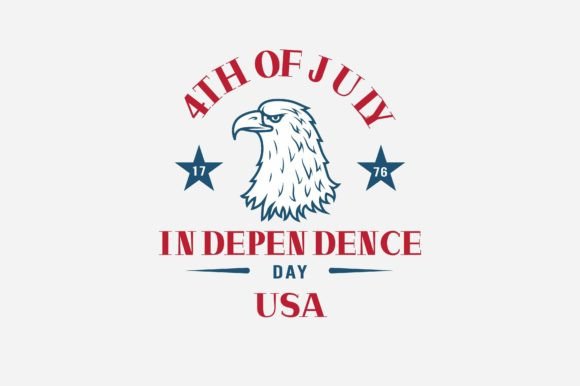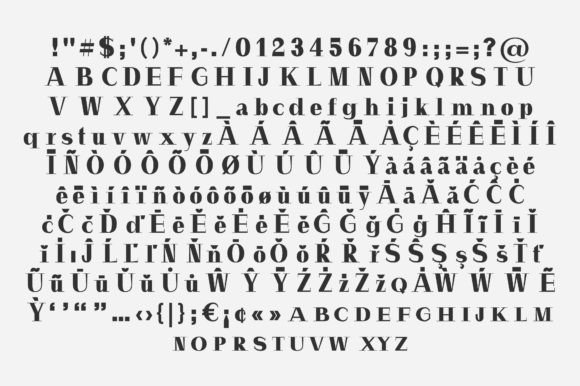
Brklyn
Brklyn: A Modern and Stylish Slab Serif Font
Brklyn is a modern, stylish, and chic slab serif font designed to give an elegant aspect to your creations! Use it confidently in your creative projects, and you will see how it takes everything in your design to the next level.
Key Features of Brklyn
• Modern Design: Offers a contemporary look suitable for various applications.
• Slab Serif Structure: Features distinctive serifs that add character and style.
• Stylish Appearance: Brings a chic and elegant feel to designs.
• Versatile Application: Elevates various creative projects to the next level.
Ideal Uses for Brklyn
Brklyn’s unique characteristics make it particularly well-suited for:
When incorporating Brklyn into your designs, consider these tips:
• Use for headlines or short blocks of text to showcase its modern and stylish features.
• Experiment with different sizes to highlight the font’s elegant aspects.
• Utilize its chic appearance to elevate the overall look of your designs.
Brklyn is an excellent choice for designers looking to add a modern and stylish slab serif font to their typographic toolkit. Its ability to bring elegance and contemporary flair to various design projects makes it stand out in the world of typography. Whether you’re working on fashion branding, creating magazine layouts, or developing content that requires a touch of sophistication, Brklyn offers the perfect blend of modernity and style.
Furthermore, Brklyn’s unique design allows it to shine in various contexts where a chic and elegant look is desired. From product packaging to social media content, this font can elevate your projects with its distinctive style. Its modern yet refined appearance works particularly well in designs that aim to convey a sense of contemporary elegance and sophistication.
In conclusion, Brklyn is a font that truly captures the essence of modern, stylish design in typography. Its versatility across different applications showcases its adaptability to various creative needs. For those looking to add a touch of chic charm to their work, Brklyn can enhance themed creations with its distinctive style. It’s the perfect choice for designers seeking to make a sophisticated, stylish impact across a wide range of creative projects.